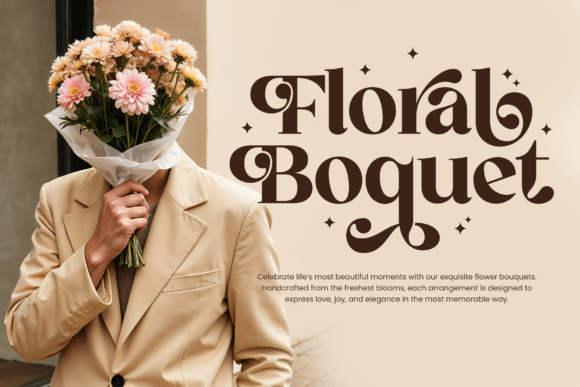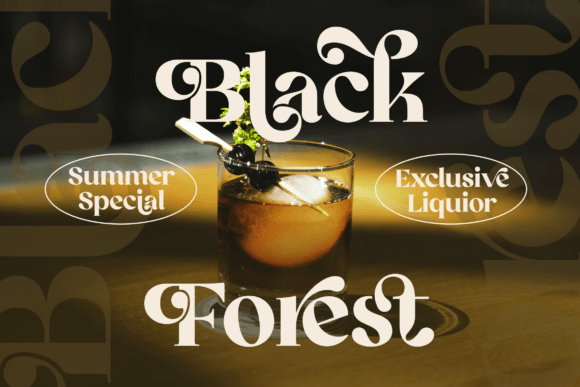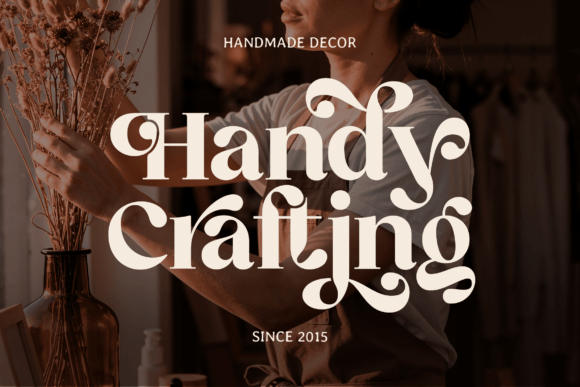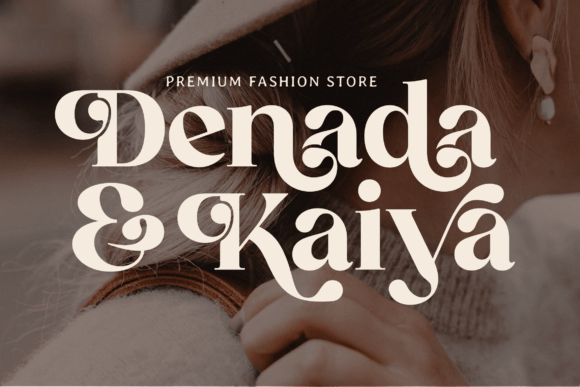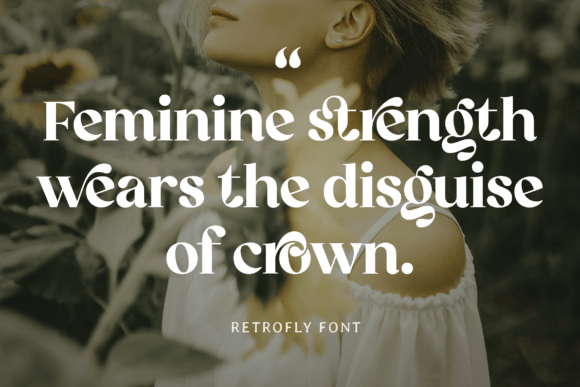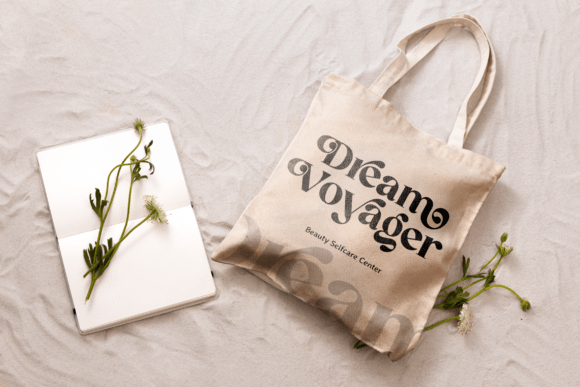
Introduction to Retrofly Font Font
Fonts play a crucial role in design, and the Retrofly Font font is a typeface that brings both character and versatility to any project. Whether you’re working on a branding project, a website, or a print design, the Retrofly Font font offers a unique style that can elevate your work.
Retrofly is a bold retro serif font inspired by the vibrant typography of the 70s and 80s.
With its playful curves, groovy letterforms, and high-contrast details, Retrofly brings back the charm of vintage design while keeping a modern edge Perfect for logos, posters, t-shirts, packaging, and branding projects, Retrofly instantly energizes your work with a nostalgic yet stylish personality.
The Retrofly Font font is more than just a typeface – it’s a design tool that helps you communicate your message with style and clarity. Its unique character set and versatile design make it suitable for a wide range of applications, from elegant invitations to bold headlines.
With its carefully crafted letterforms and balanced proportions, the Retrofly Font font ensures readability and visual appeal across all mediums.
The Retrofly Font font stands out with its unique design, exceptional readability, and versatility across various design applications.